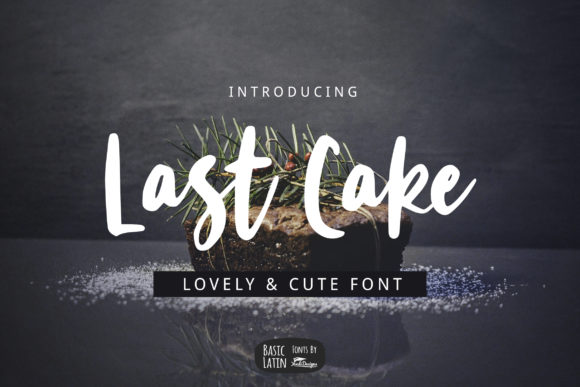
Feast your eyes on Last Cake, the deliciously delectable font that will tantalize your creative taste buds! This enchanting script font, lovingly crafted by YandiDesigns, is a calligraphic masterpiece that dances across the page with grace and elegance.
Awaken your inner artist with its mesmerizing swirls and playful curves that evoke a sense of whimsy and spontaneity. Last Cake is not just another font; it's an invitation to embark on a journey of visual delight.
Unleash your creativity with this versatile font that seamlessly adapts to a myriad of design endeavors. Its charming personality makes it the perfect choice for logos that demand attention, branding that exudes warmth, social media posts that captivate, and DIY projects that overflow with originality.
Whether you're a seasoned designer or just starting your creative adventure, Last Cake is your trusty companion, guiding you towards design excellence. Let its enchanting strokes inspire you to craft visual masterpieces that leave a lasting impression on all who behold them.
Indulge in the sweet temptation of Last Cake today and elevate your designs to extraordinary heights! Its delectable charm will leave you craving for more, turning every project into a feast for the eyes. Experience the magic of Last Cake and let your creativity soar to new heights!